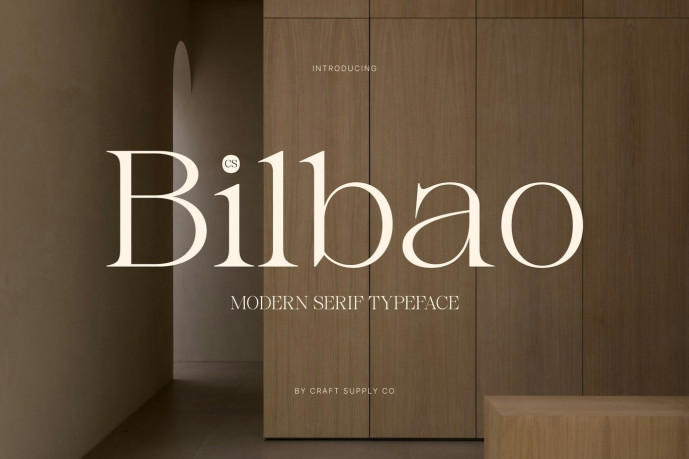
Bilbao – Modern Serif Font
Designer: Craft Supply Co.
CS Bilbao – Modern Serif Font: Where Slender Elegance Meets Contemporary Luxury Slim Proportions with Graceful Elongated Serifs This is a modern serif font designed with slim proportions and elegant elongated serifs, creating a refined visual identity that feels sophisticated, graceful, and timeless. Its slender letterforms bring a sense of lightness and precision, while the extended serif details add a luxurious character that enhances every composition with understated elegance.
Contemporary Style with Timeless Appeal This font presents a clean and balanced aesthetic suitable for premium design. Its carefully crafted proportions and subtle contrast create a harmonious rhythm, allowing the font to remain highly readable while expressing a polished, high-end personality. The result is typography that feels both current and enduring.
Elegant Expression with Professional Confidence This font communicates professionalism through its graceful structure and meticulous detailing. Its refined silhouette makes it an excellent choice for projects that require sophistication without excessive ornamentation. Whether used for striking headlines or elegant branding, the font delivers a confident and memorable visual presence.
Perfect for Luxury Products and High-End Design Perfect for luxury brand identities, fashion and beauty branding, editorial layouts, magazine covers, premium packaging, hotel and hospitality branding, invitations, product labels, logos, advertising campaigns, and other high-end creative projects. Its elegant serif forms make it ideal for typography that seeks to communicate prestige, professionalism, and timeless refinement.